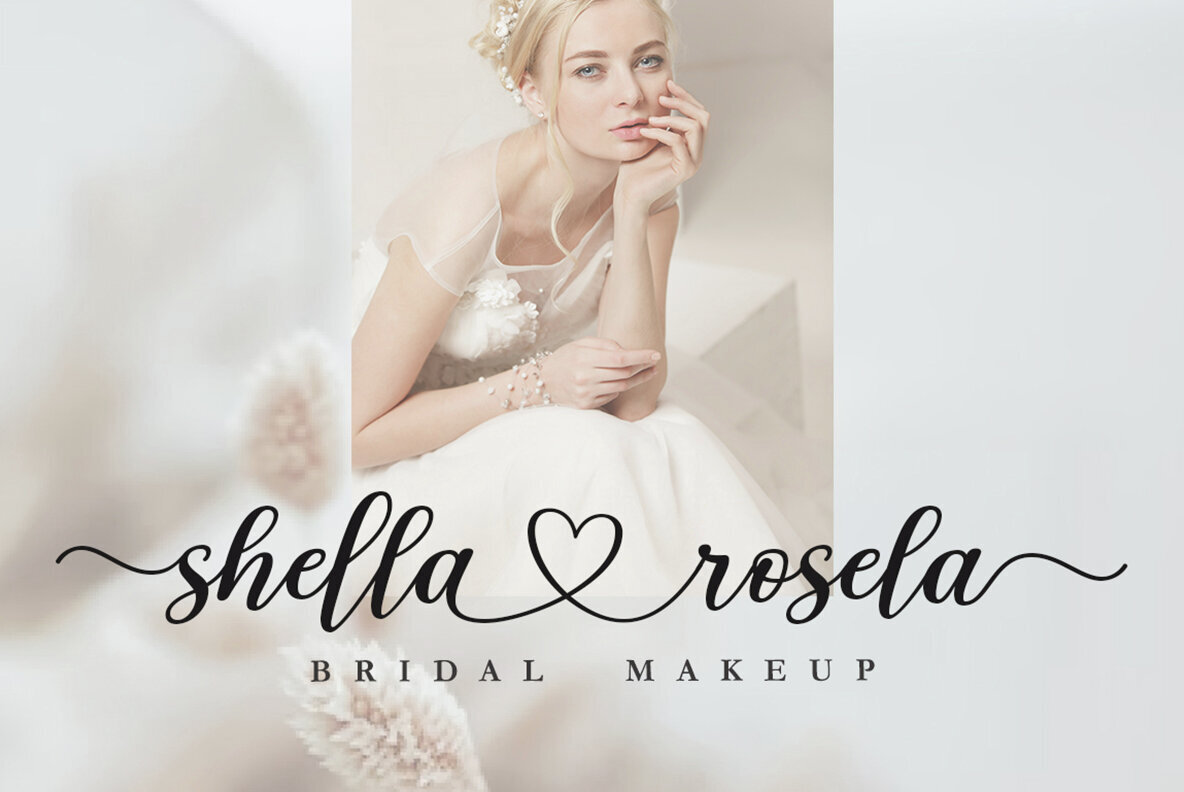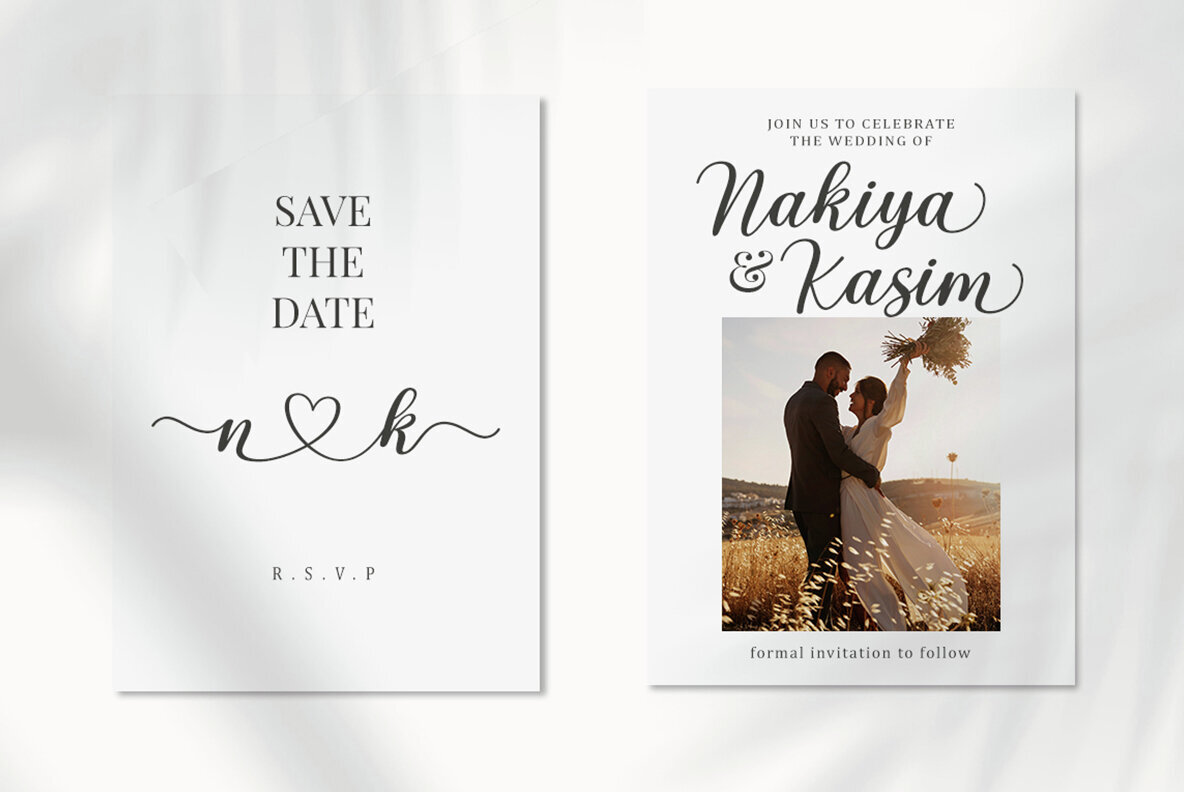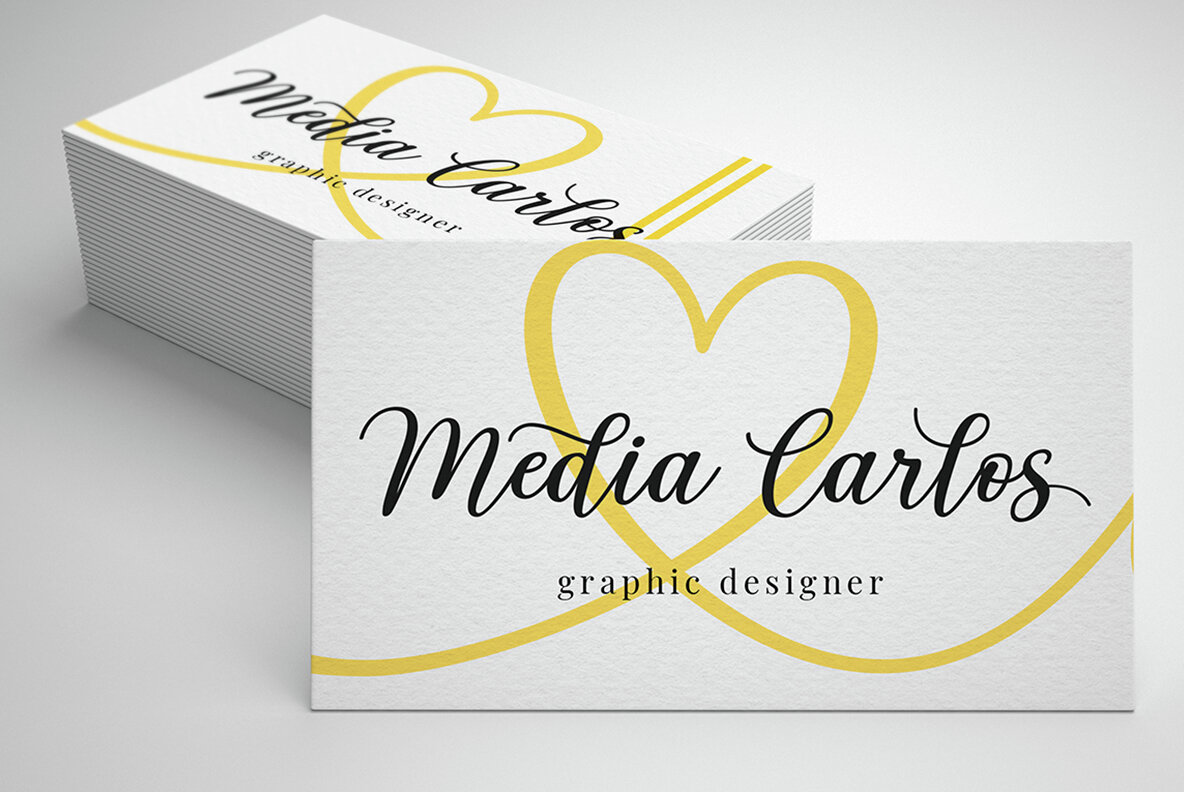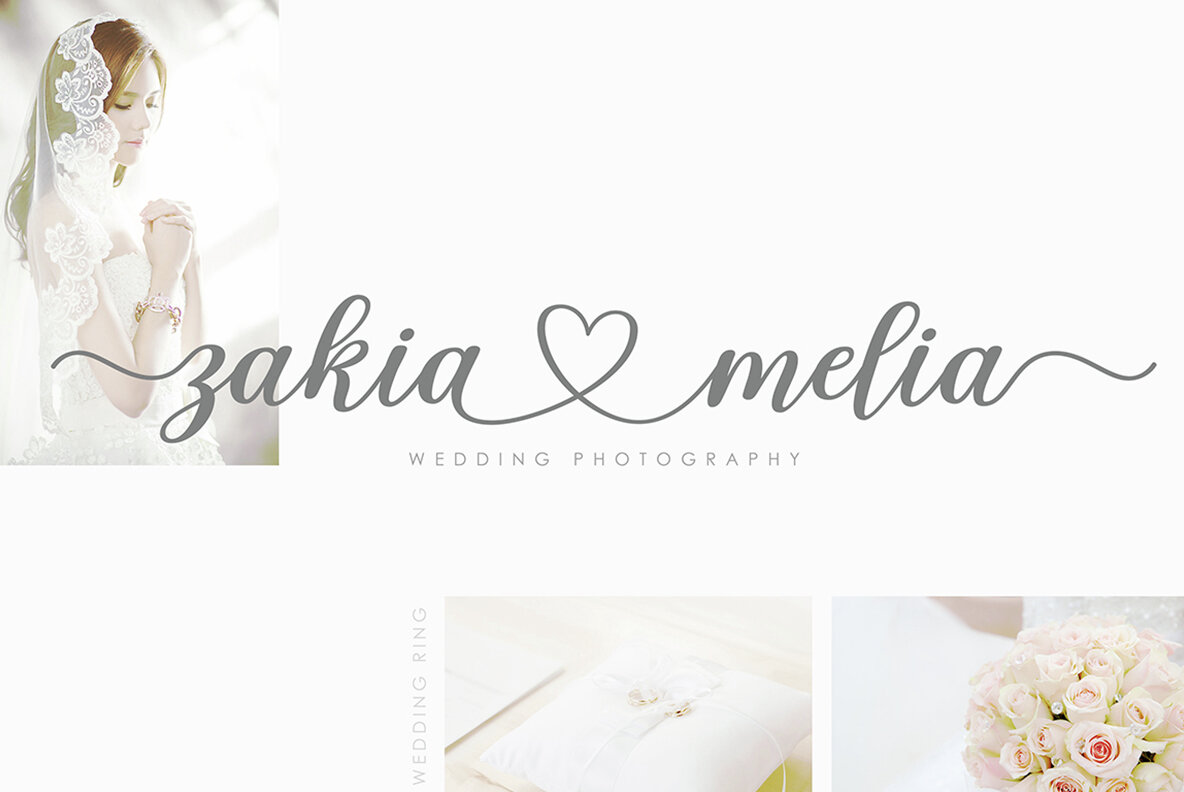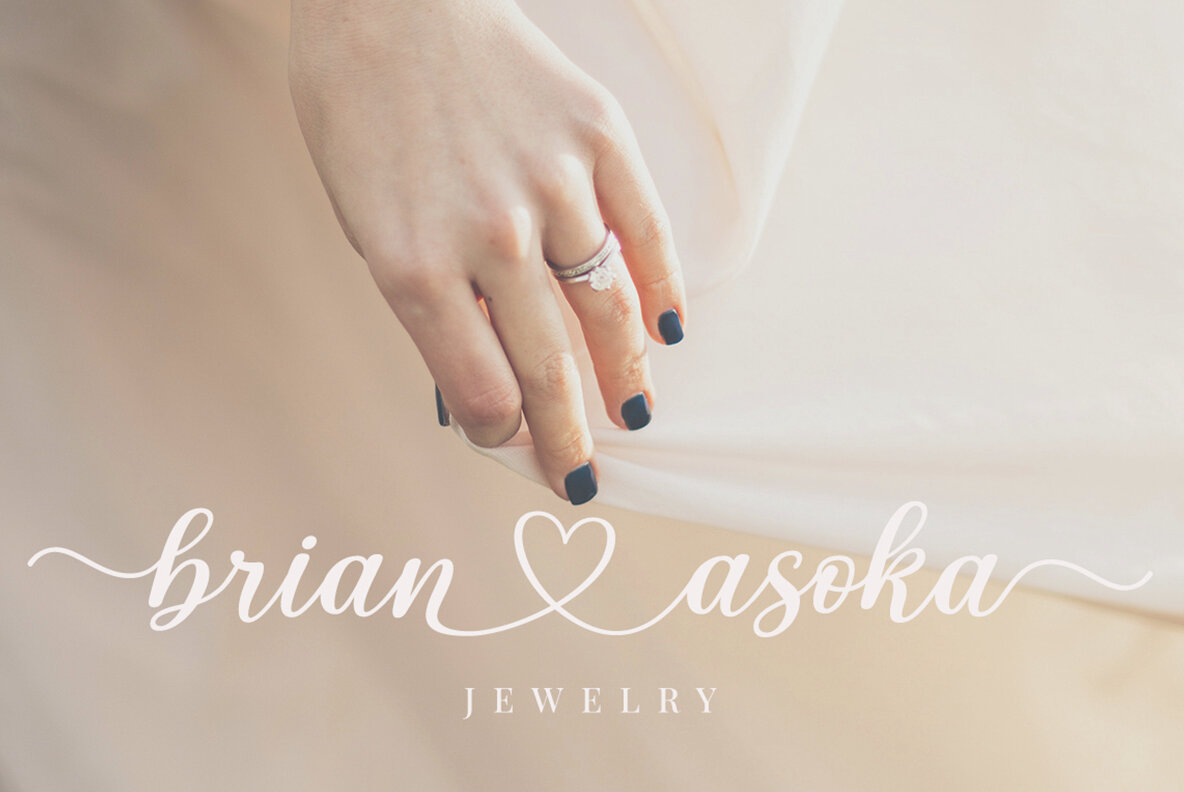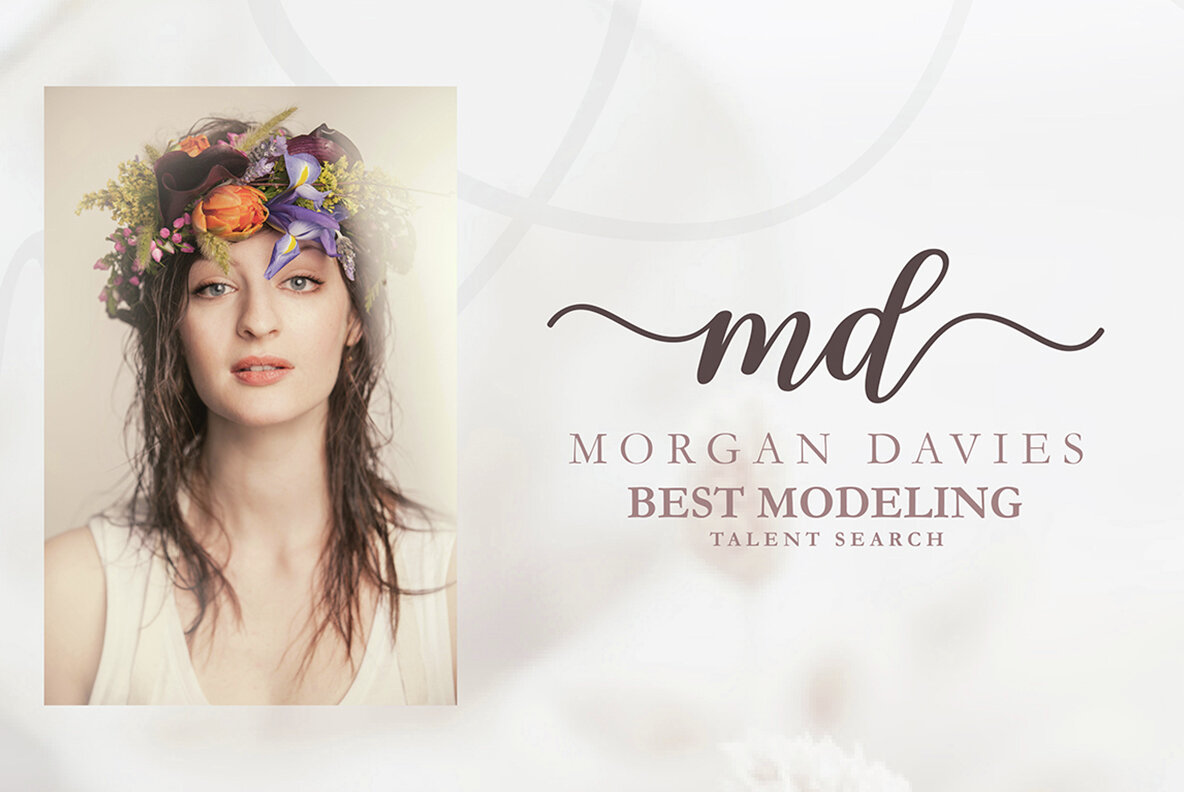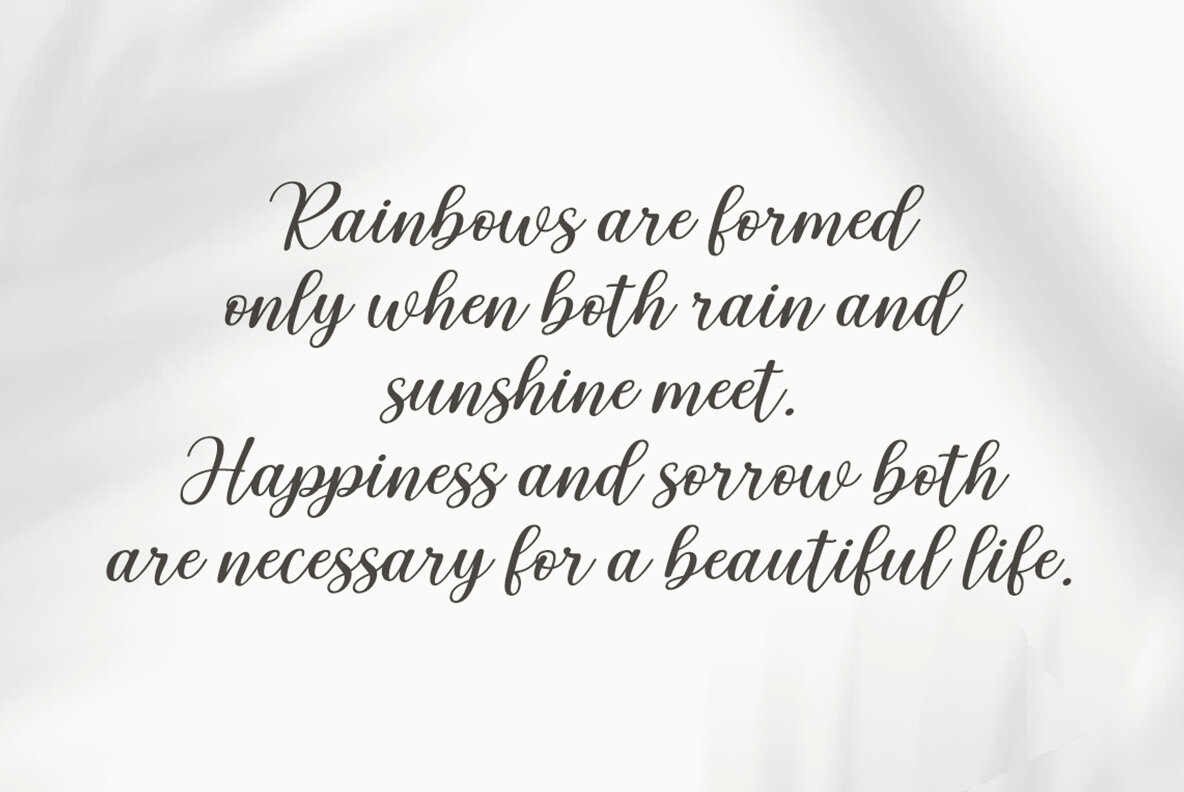
Milea Lover: A Feminine Script Font for Romantic Designs
Milea Lover is a captivating script font with an irregular baseline, offering a distinct feminine and trendy style that adds a touch of love to your design projects.
• Branding and Logos – Perfect for creating memorable brand identities.
• Wedding Invitations – Enhances the elegance of your special day.
• Greeting Cards – Adds a personal touch to your messages.
• Fashion and Book Covers – Offers an eye-catching appeal.
• Posters and Labels – Creates a striking first impression.